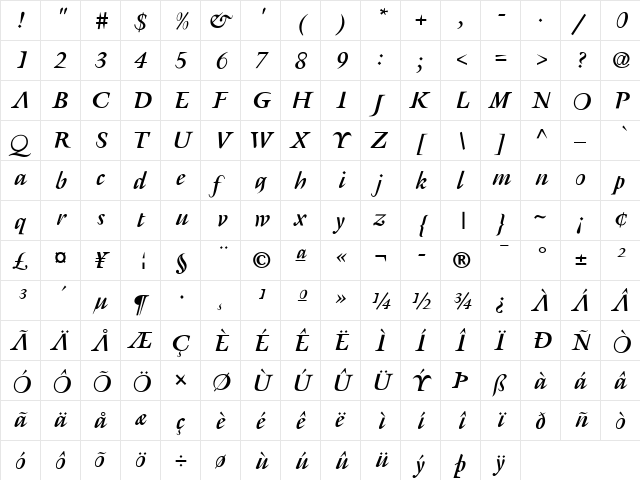
AFRetrospecta-BoldItalic Bold Italic Font Preview
Design Context for AFRetrospecta-BoldItalic Typeface
AFRetrospecta-BoldItalic wears its vintage influences proudly, with letterforms that recall mid-century signage, classic packaging, and nostalgia-driven design. Its italic angle brings a sense of urgency and motion to the letterforms. Its bold stroke weight gives it real presence on the page.
Ideal for diner signage, record shop branding, 70s/80s-themed projects, and heritage product labels.
Font Pairing: Combine AFRetrospecta-BoldItalic with a simple slab or neutral sans — period-accurate companions reinforce the vintage feel without competing for attention.
Pro Tip: Lean into AFRetrospecta-BoldItalic's period character by pairing it with aged paper textures, muted colour palettes, and vintage illustration styles.